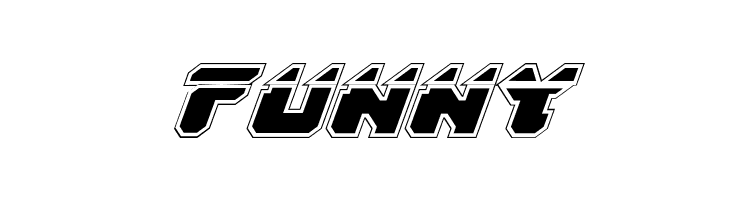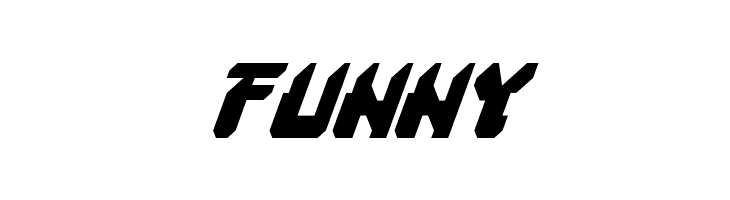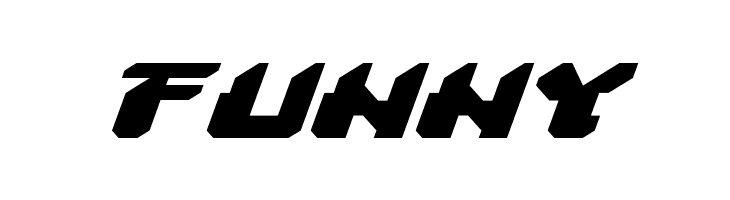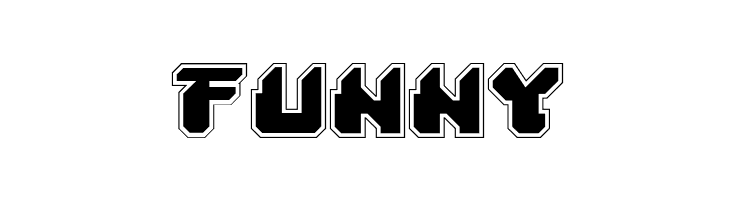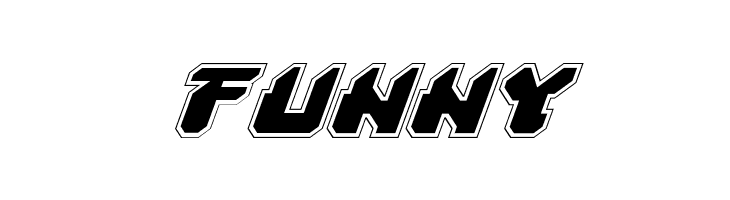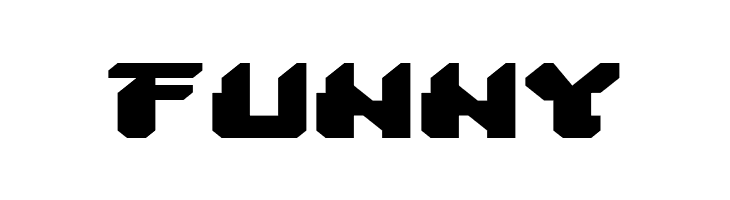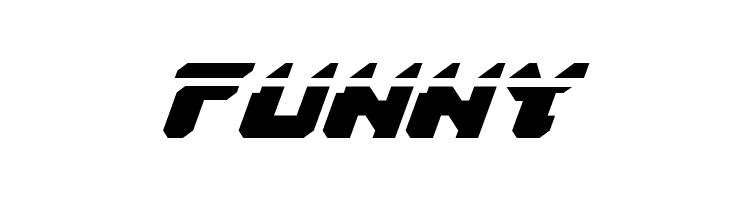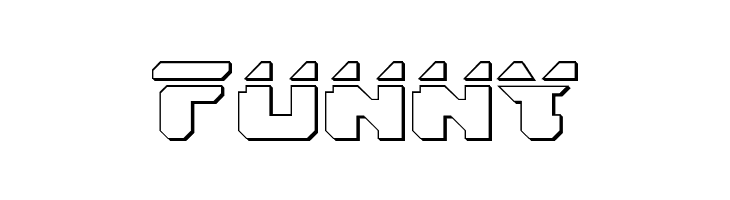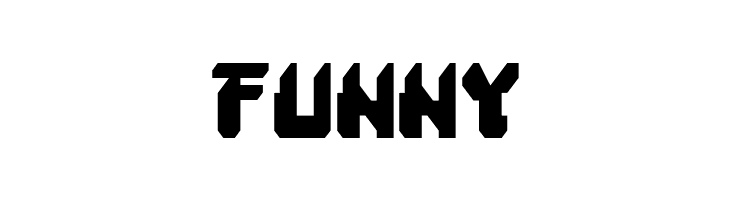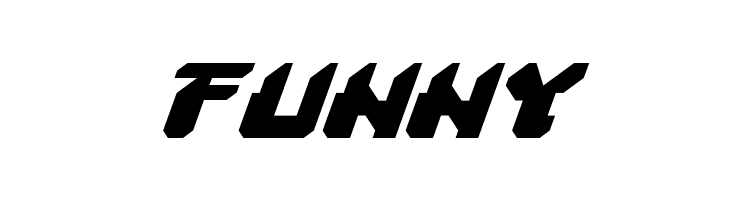
A bold, artistic font with an ink-like, fluid appearance.
• Artefekt
( Fonts by Tom Raaijmakers )
Abstract, tech-themed dingbat font with bold, decorative symbols.
• AS/SQ Regular
• Ashley Marie
• ASTRONEO
• Astropolis
A bold, geometric font with a futuristic and edgy style.